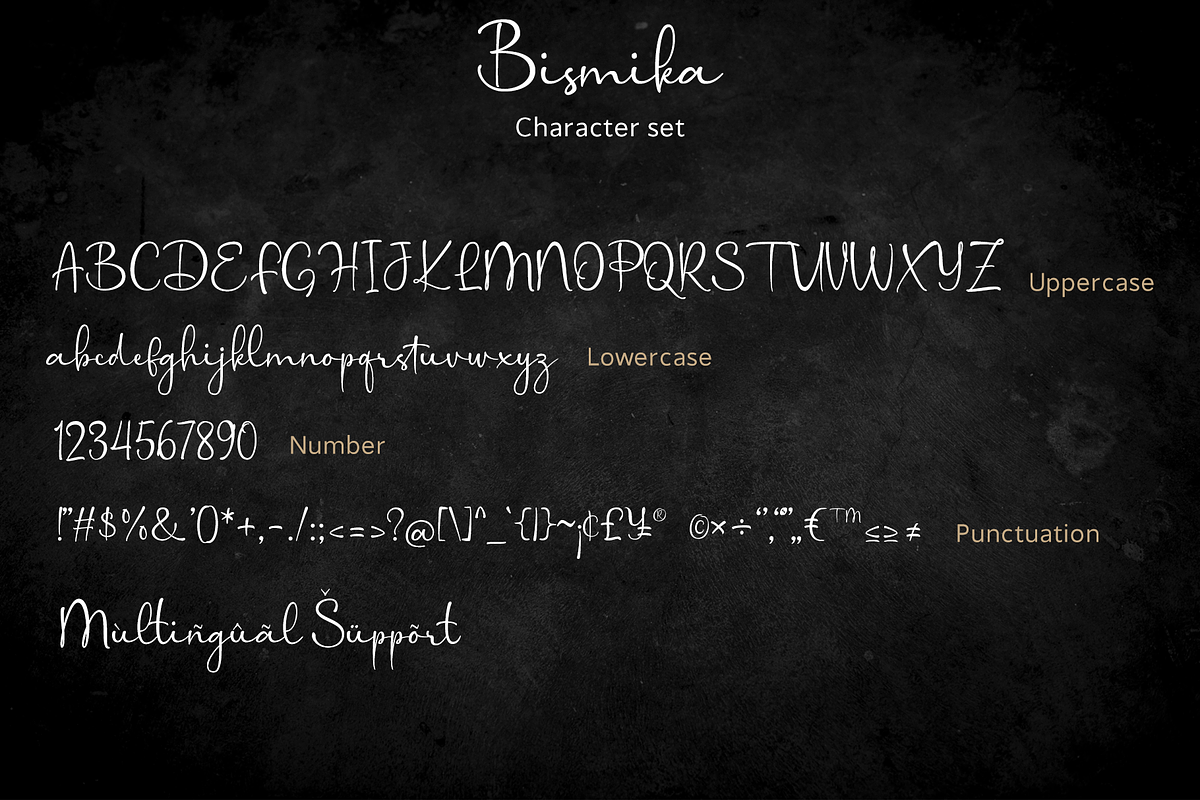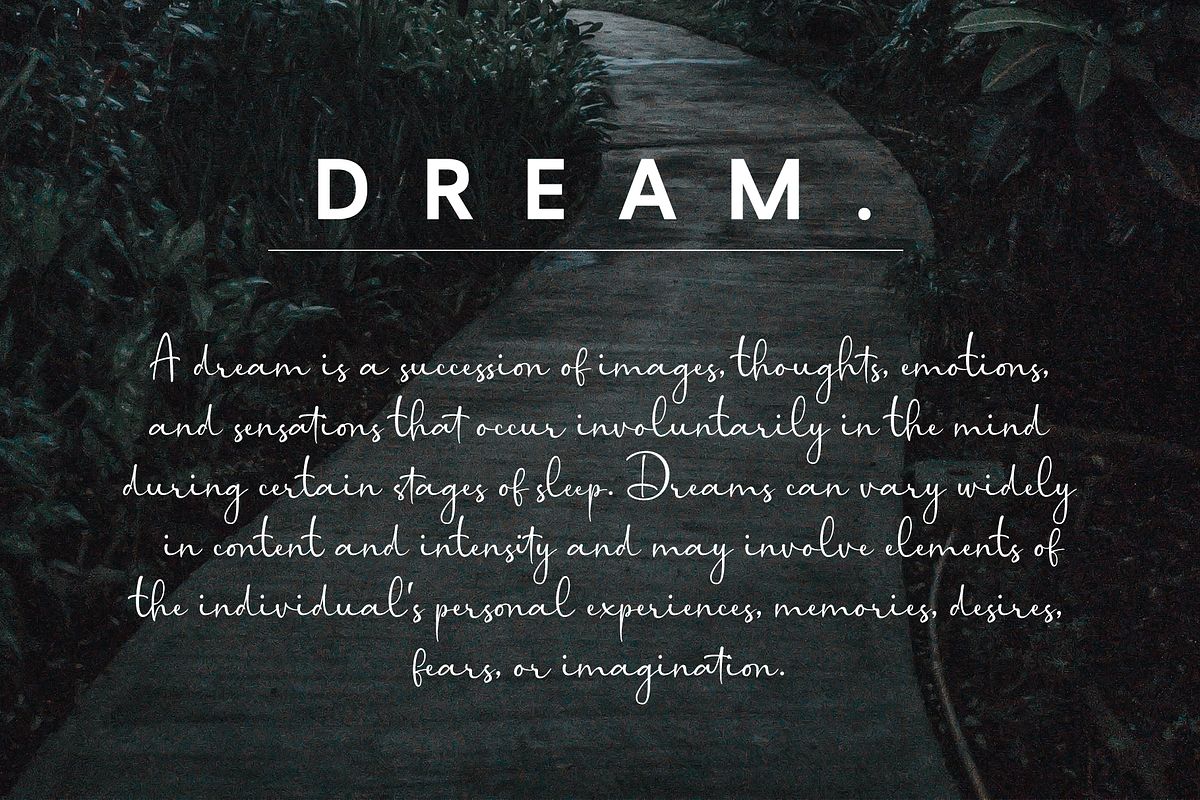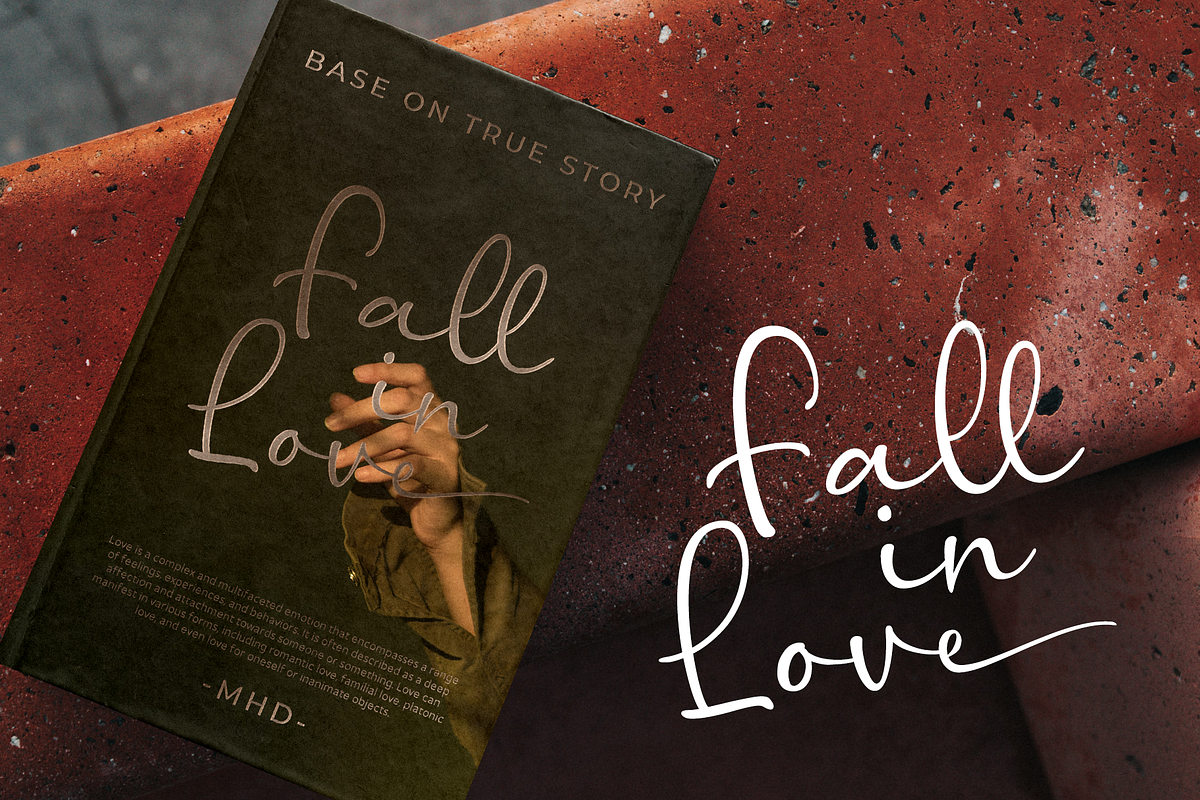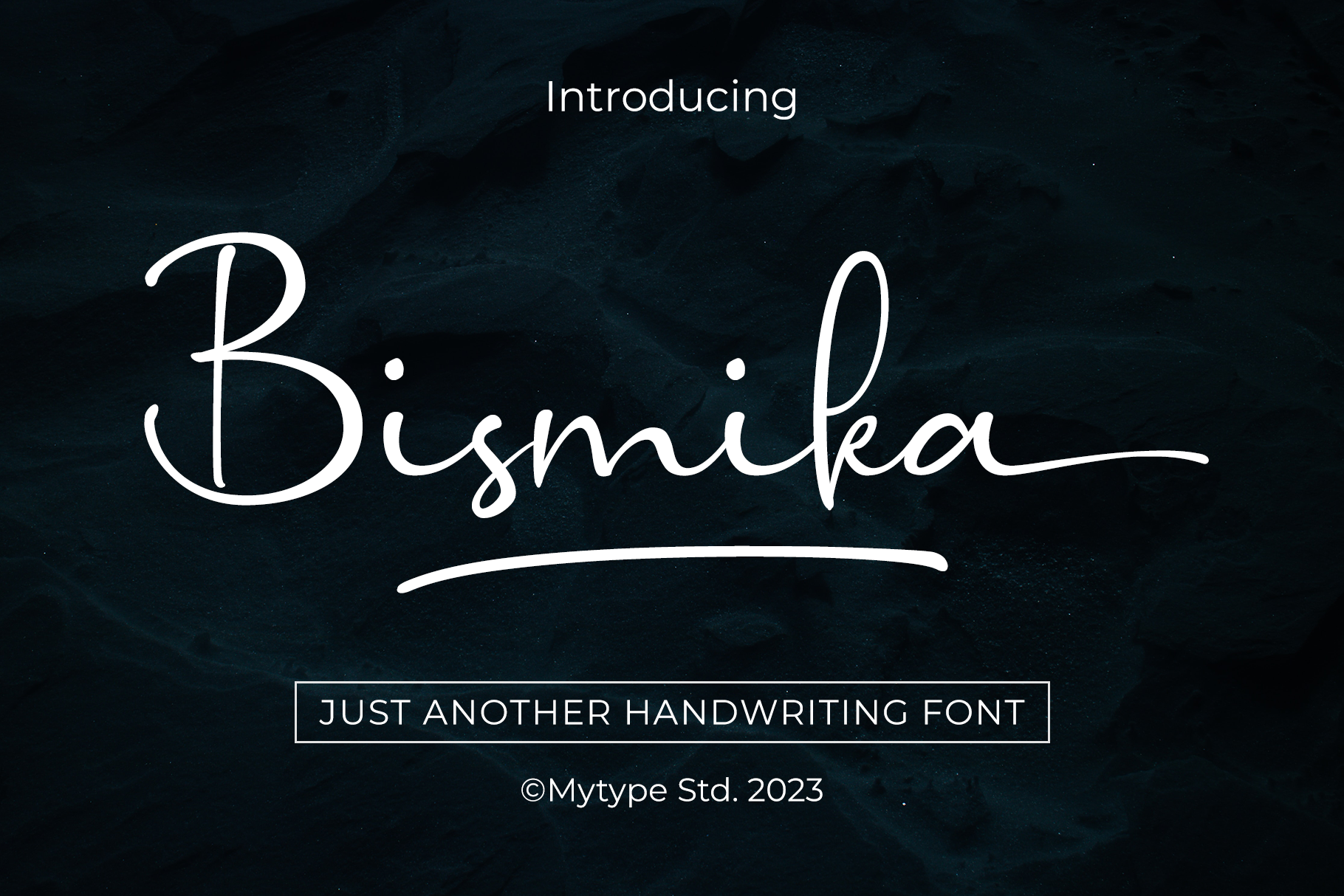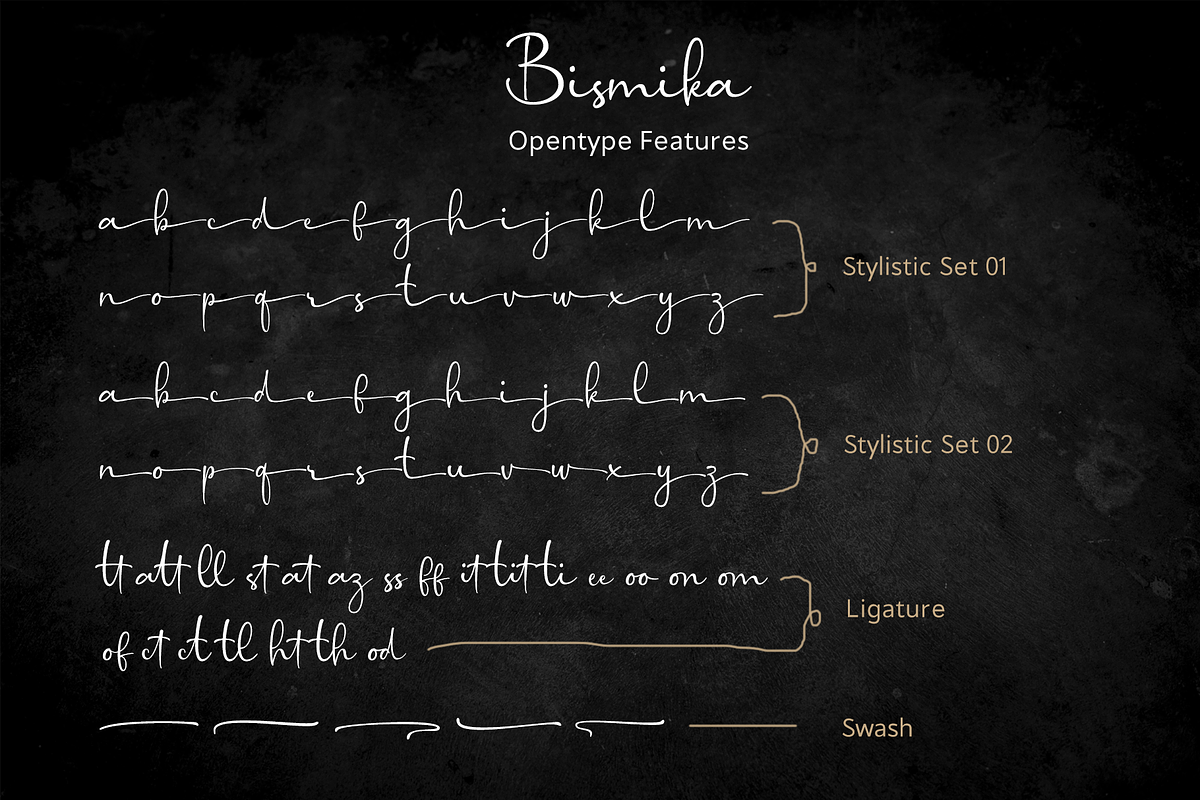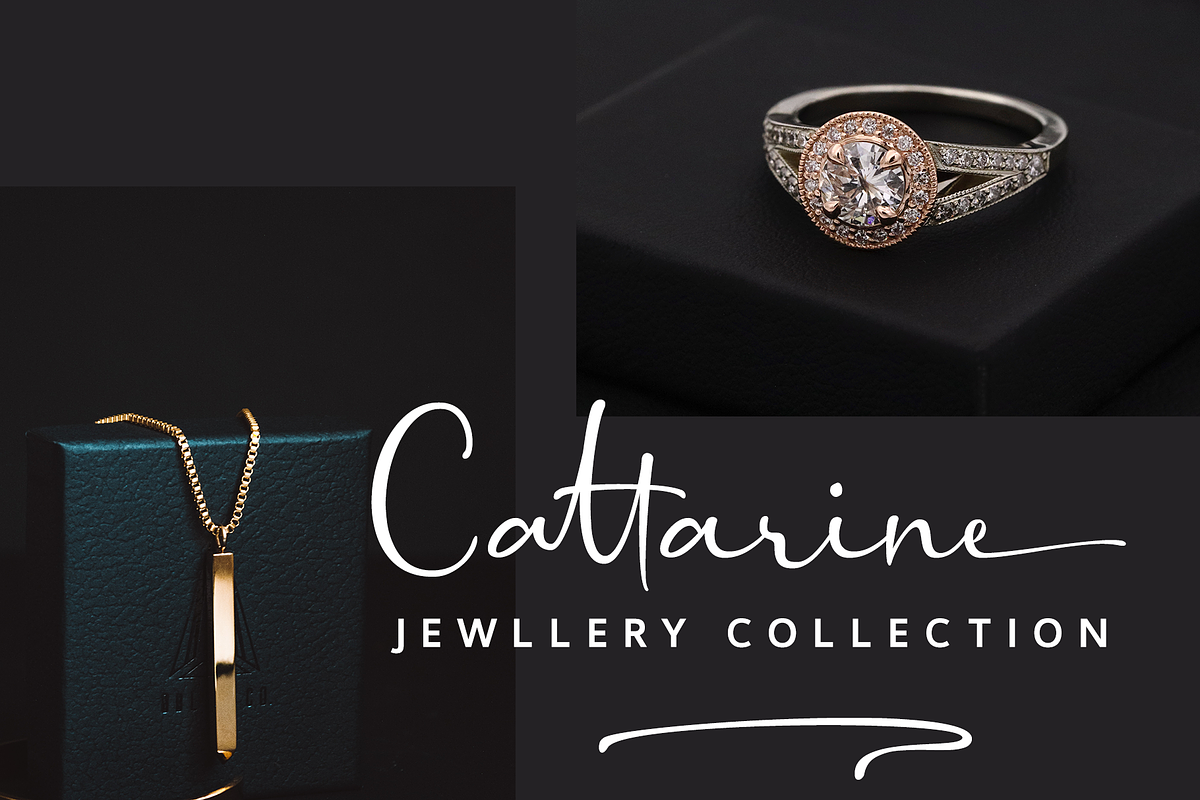
Bismika - Handwriting Font
Exquisite and elegant, our Script Font showcases the artistry of beautiful calligraphy. With its flowing curves, delicate strokes, and stylish flourishes, this font adds a touch of sophistication to your designs. Perfect for wedding invitations, branding materials, and refined projects that demand a timeless charm. Elevate your typography with our captivating Script Font.
- Stylistic Alternet 1 & 2